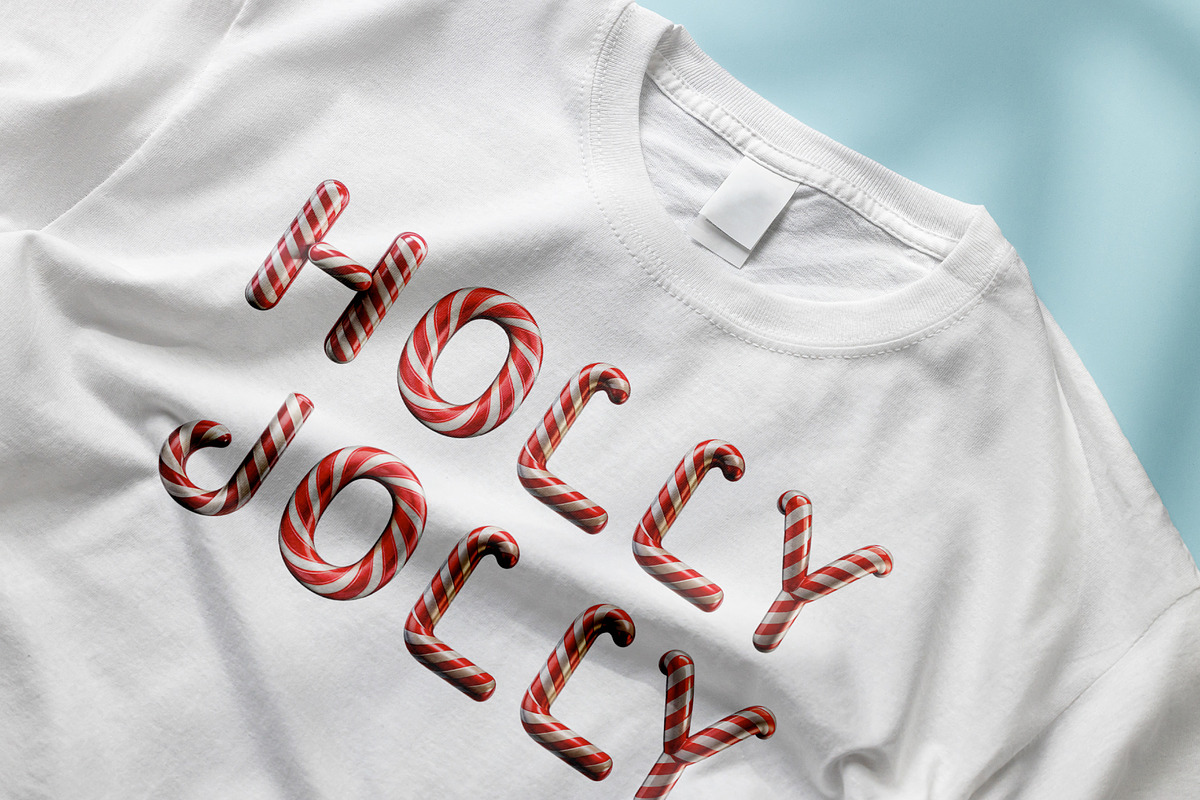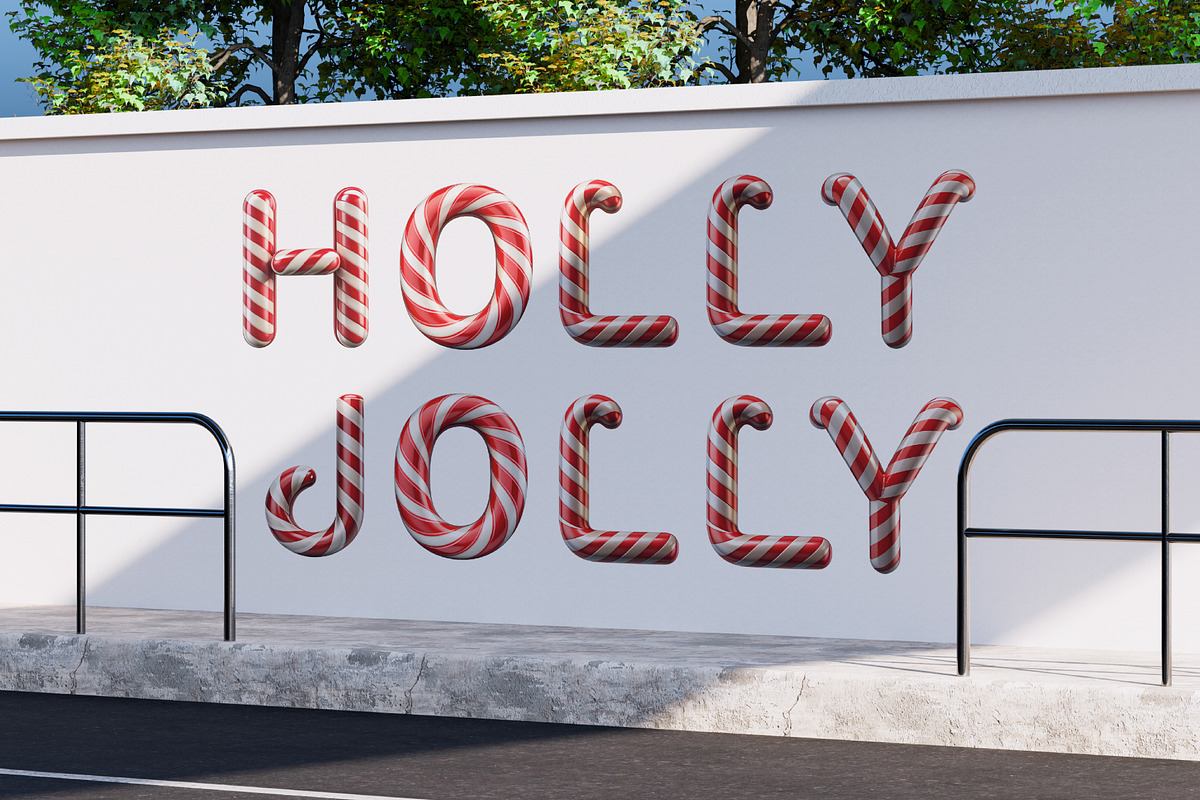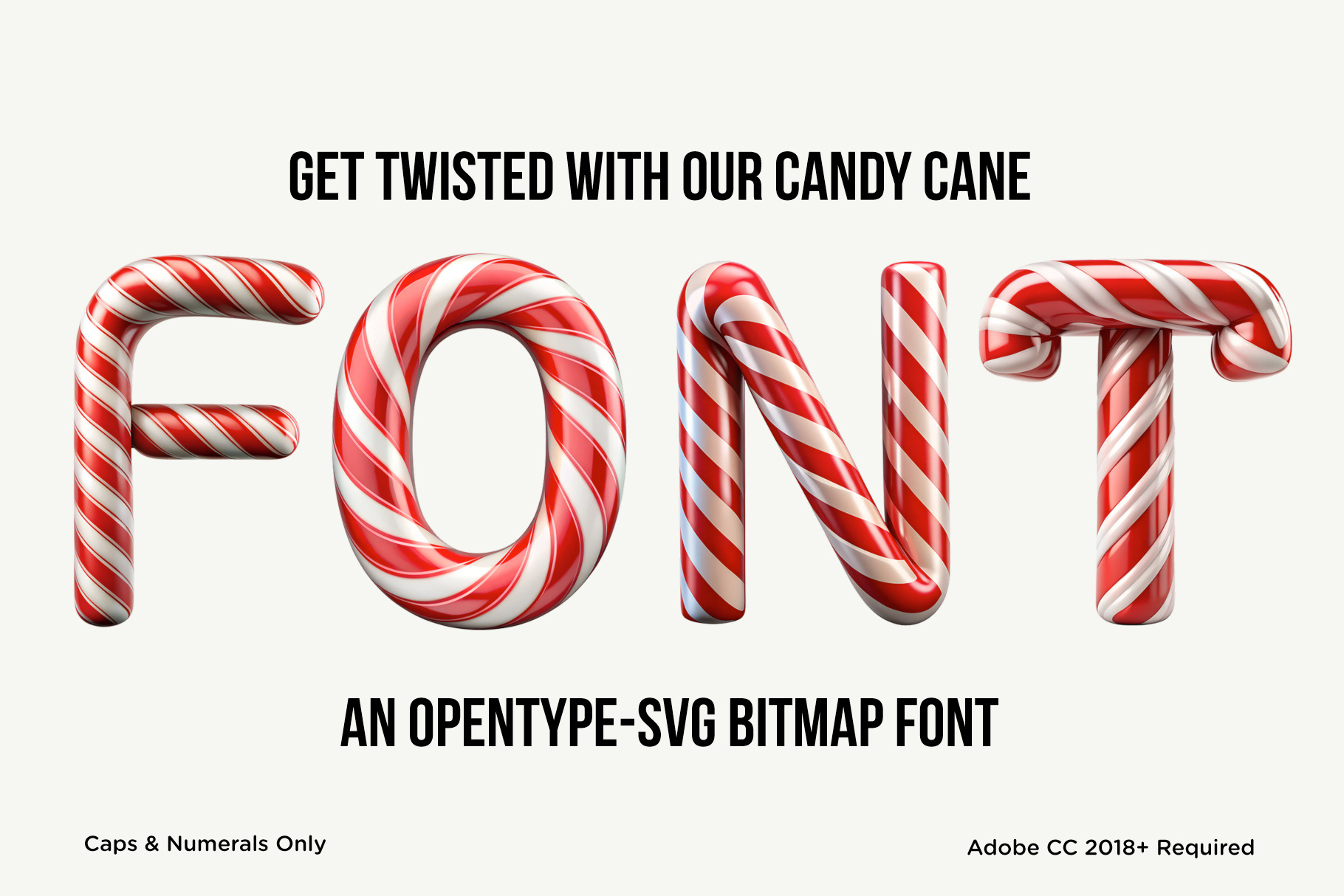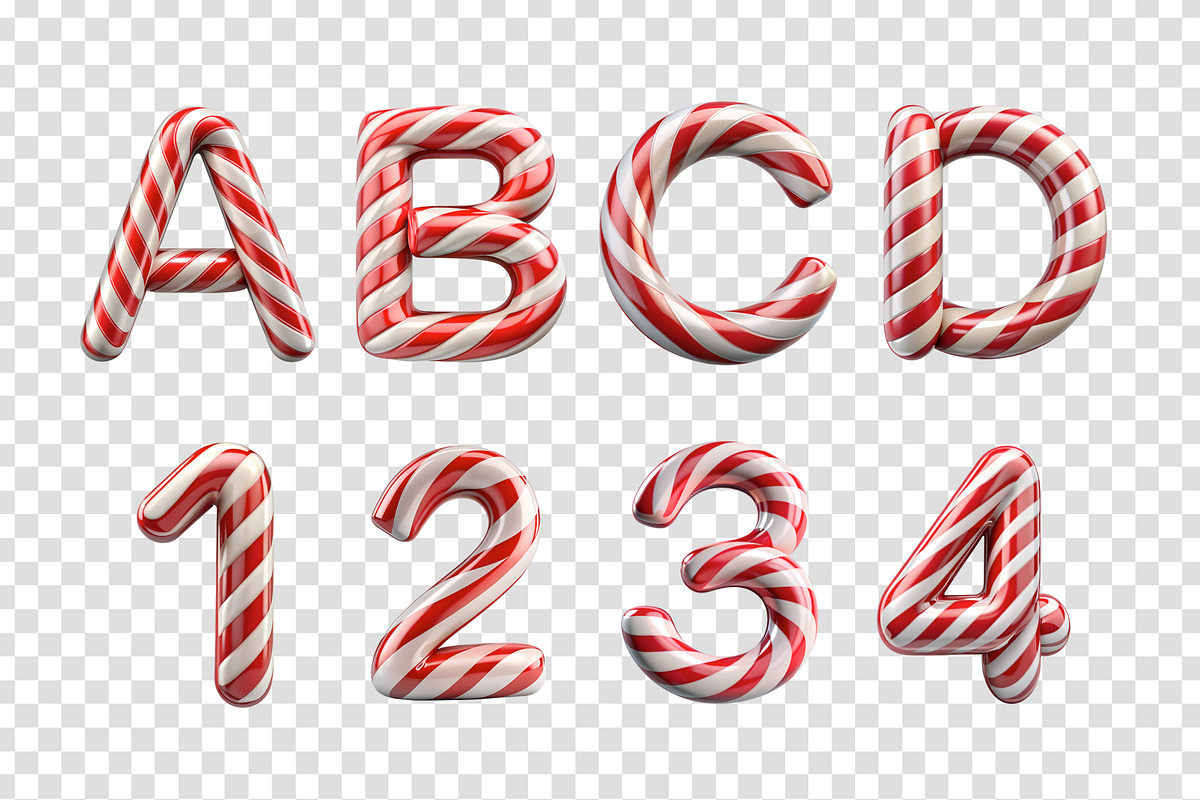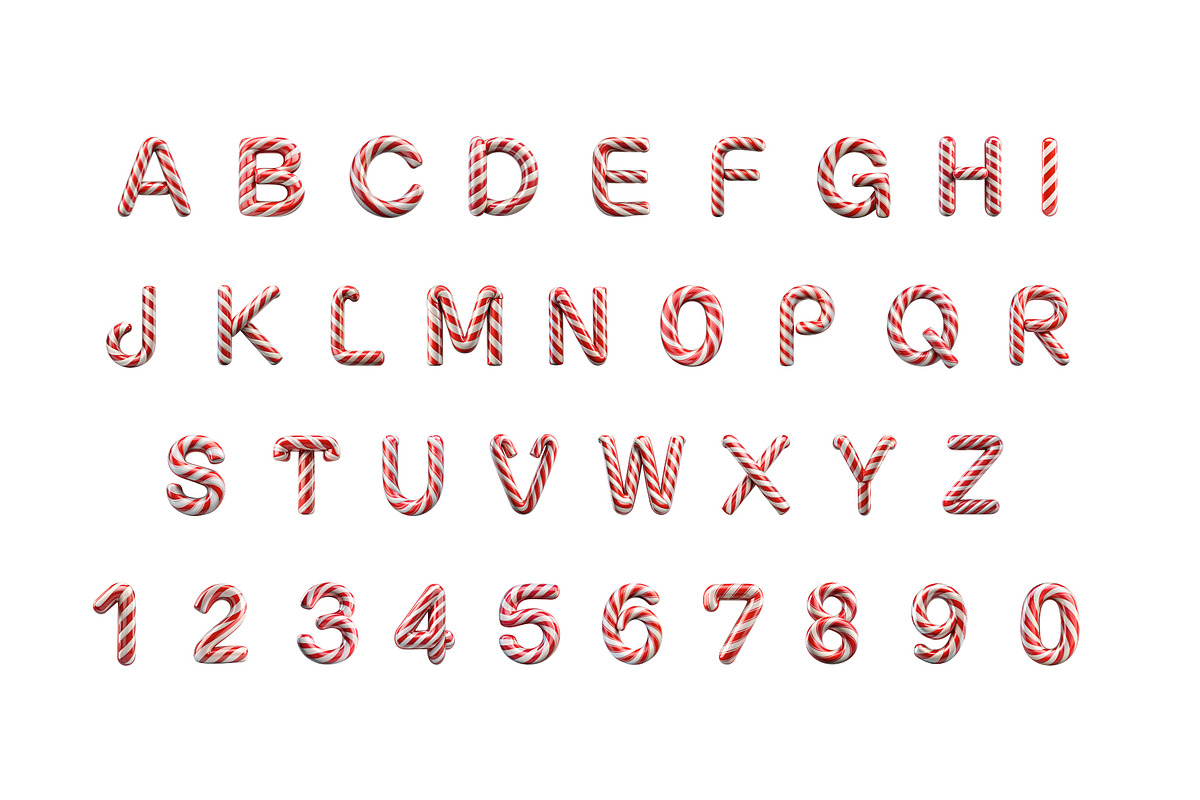
Candy Cane 3D Font
Candy Cane is a festive 3D display font handcrafted from glossy, red-and-white peppermint sticks. Each letter is wrapped in realistic candy stripes with a shiny, glazed finish that instantly brings holiday joy. Perfect for Christmas cards, seasonal branding, packaging, posters, or any design that needs a sweet festive touch.
This OpenType-SVG bitmap font includes uppercase letters and numerals only. Each glyph features a high-resolution baked candy texture for a photorealistic, handcrafted look. Ideal for large display use such as titles, signage, or playful holiday layouts.